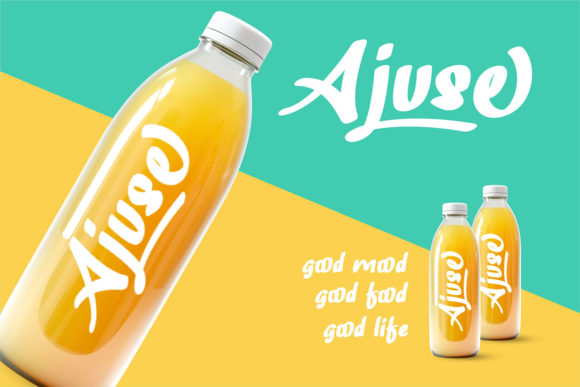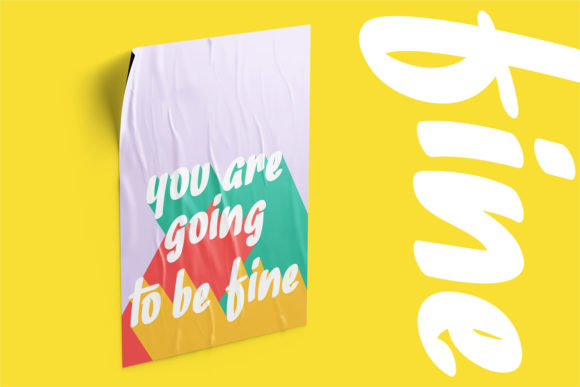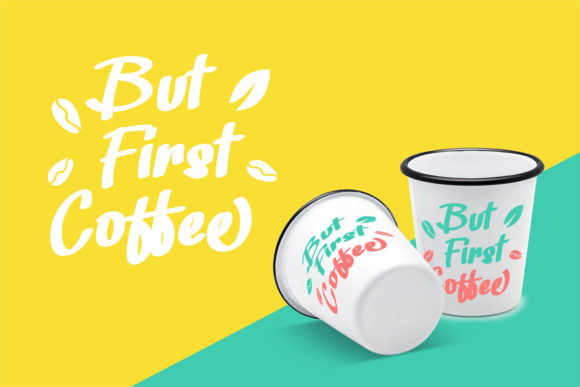
Discover the Elegance of Amuba Font: A Timeless Handwritten Style
Are you a designer or crafter looking for a unique and elegant font to elevate your projects? Look no further than Amuba Font, a stunning flowing handwritten font that exudes sophistication and style. With its incredibly distinct and timeless design, Amuba Font is perfect for creating spectacular designs that will leave a lasting impression.
What is Amuba Font?
Amuba Font is a beautiful handwritten font that boasts an elegant touch, making it ideal for a wide range of projects, from creative designs to commercial use. Its flowing script and cursive style give it a distinctive and refined look that is sure to capture attention. Whether you’re working on a logo, branding, packaging, or social media graphics, Amuba Font is the perfect choice to add a touch of sophistication and glamour.
Key Features of Amuba Font
- Elegant and Refined Design: Amuba Font features a beautiful, flowing script with an elegant touch that adds a touch of sophistication to any design.
- Timeless Style: The font’s classic design ensures that it will remain stylish and relevant for years to come, making it a great investment for designers and crafters.
- Incredibly Distinct: Amuba Font’s unique style sets it apart from other fonts, making it perfect for creating designs that stand out from the crowd.
- Versatile: The font is suitable for a wide range of projects, from creative designs to commercial use, making it a great addition to any design library.
Why Choose Amuba Font?
With so many fonts available, why choose Amuba Font? Here are just a few reasons why designers and crafters love this beautiful font:
- Easy to Read: Despite its elegant and refined design, Amuba Font is incredibly easy to read, making it perfect for body text and headlines.
- Highly Versatile: The font comes in a range of styles and weights, making it suitable for a wide range of projects and applications.
- Unique and Memorable: Amuba Font’s distinctive style ensures that your designs will be remembered, making it perfect for branding and logo design.
How to Use Amuba Font
Amuba Font is incredibly easy to use and can be incorporated into a wide range of projects, including:
- Logo Design: Create stunning logos that exude elegance and sophistication with Amuba Font.
- Branding: Use Amuba Font to create consistent branding across all your marketing materials, from business cards to billboards.
- Packaging: Add a touch of glamour to your packaging designs with Amuba Font’s elegant and refined style.
- Social Media Graphics: Create stunning social media graphics that will help you stand out from the crowd with Amuba Font.
Tips and Tricks for Using Amuba Font
Here are a few tips and tricks to help you get the most out of Amuba Font:
- Experiment with Different Weights: Amuba Font comes in a range of weights, so don’t be afraid to experiment to find the perfect style for your project.
- Pair with Other Fonts: Amuba Font pairs beautifully with other fonts, so try combining it with a bold sans-serif font for added contrast.
- Use it for Headlines and Titles: Amuba Font’s elegant and refined design makes it perfect for headlines and titles, but don’t be afraid to use it for body text too.
In conclusion, Amuba Font is a stunning flowing handwritten font that is perfect for designers and crafters looking to add a touch of elegance and sophistication to their projects. With its incredibly distinct and timeless style, Amuba Font is sure to become a favorite in your design library. So why wait? Fall in love with Amuba Font today and start creating spectacular designs that will leave a lasting impression!